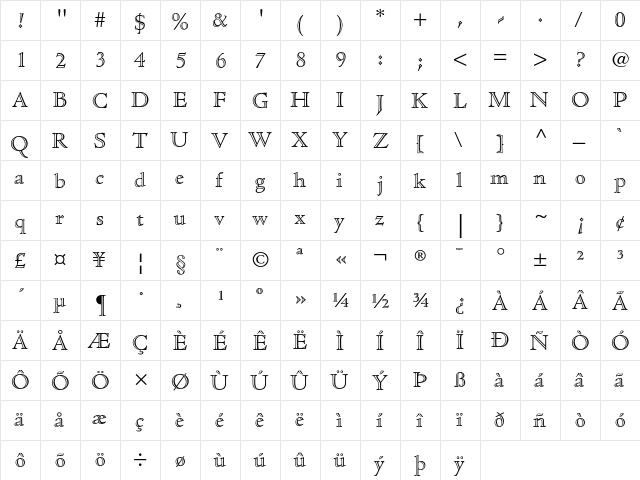
Cloister Open Face
Design Context for Cloister Typeface
Cloister takes a measured approach to typography — its balanced proportions and neutral character make it a reliable workhorse for both digital and print work.